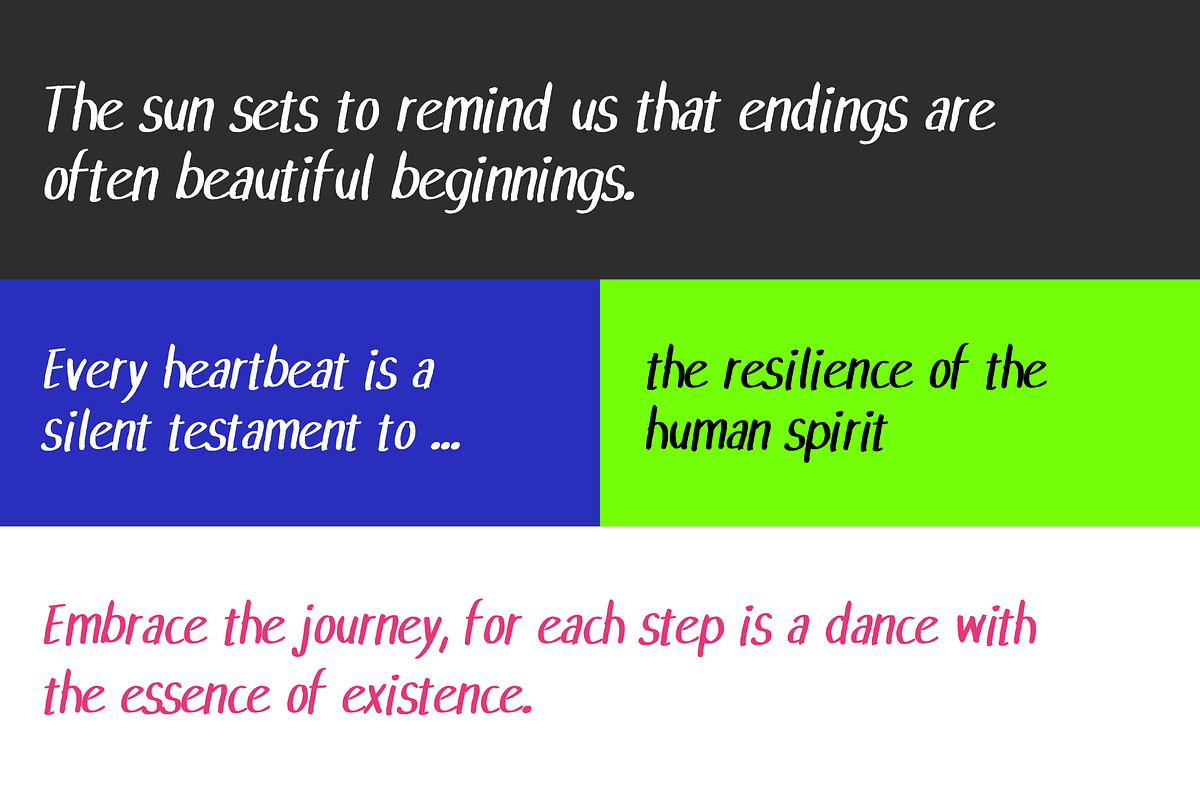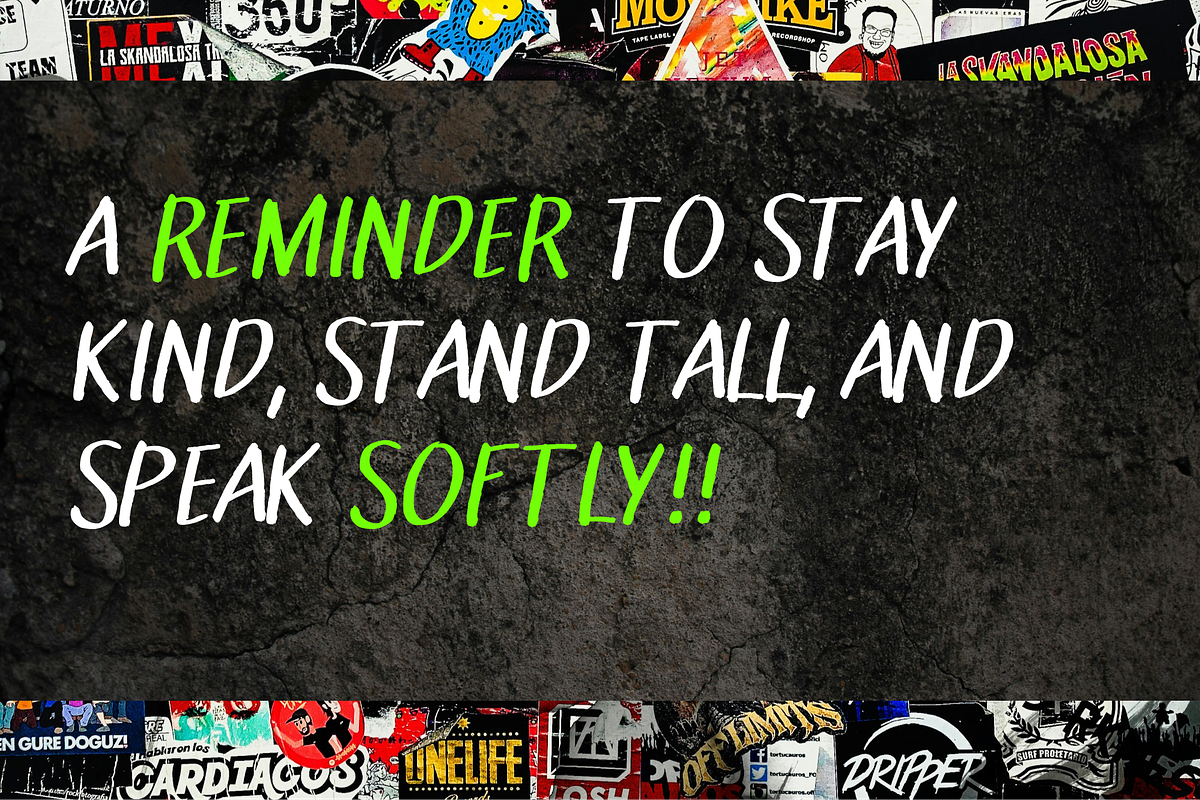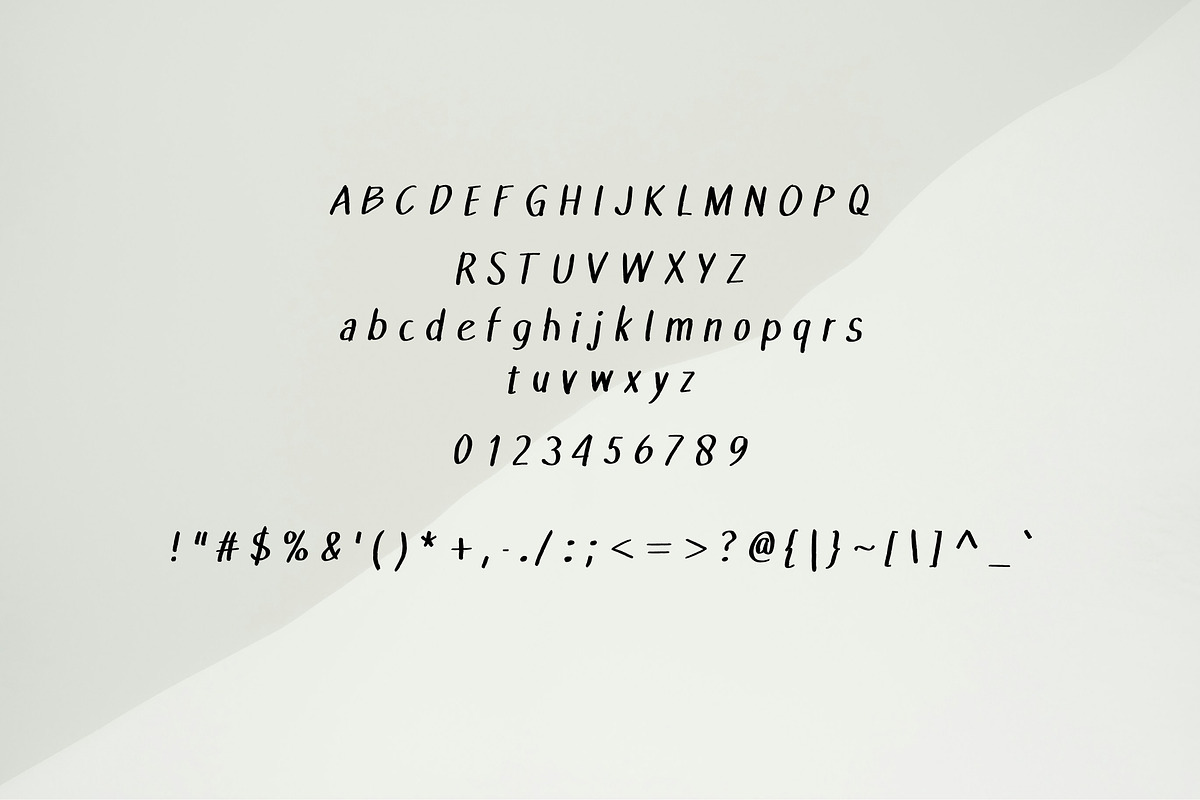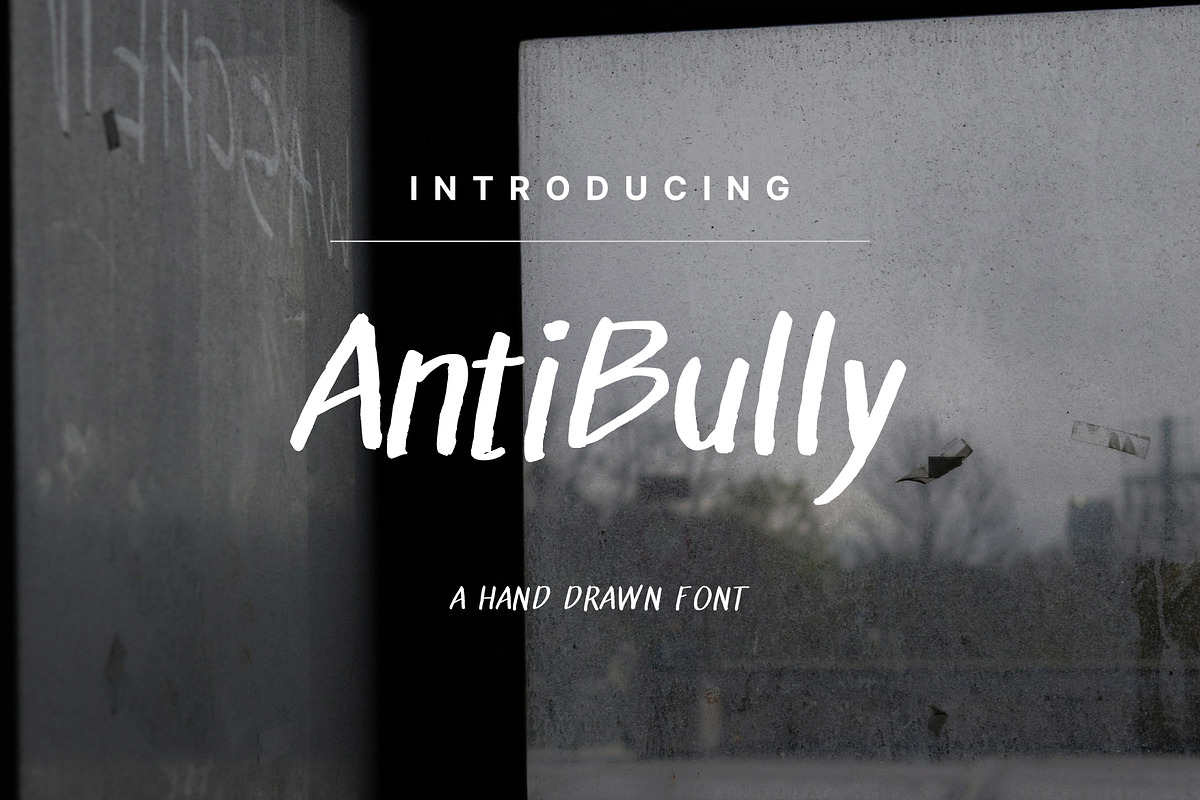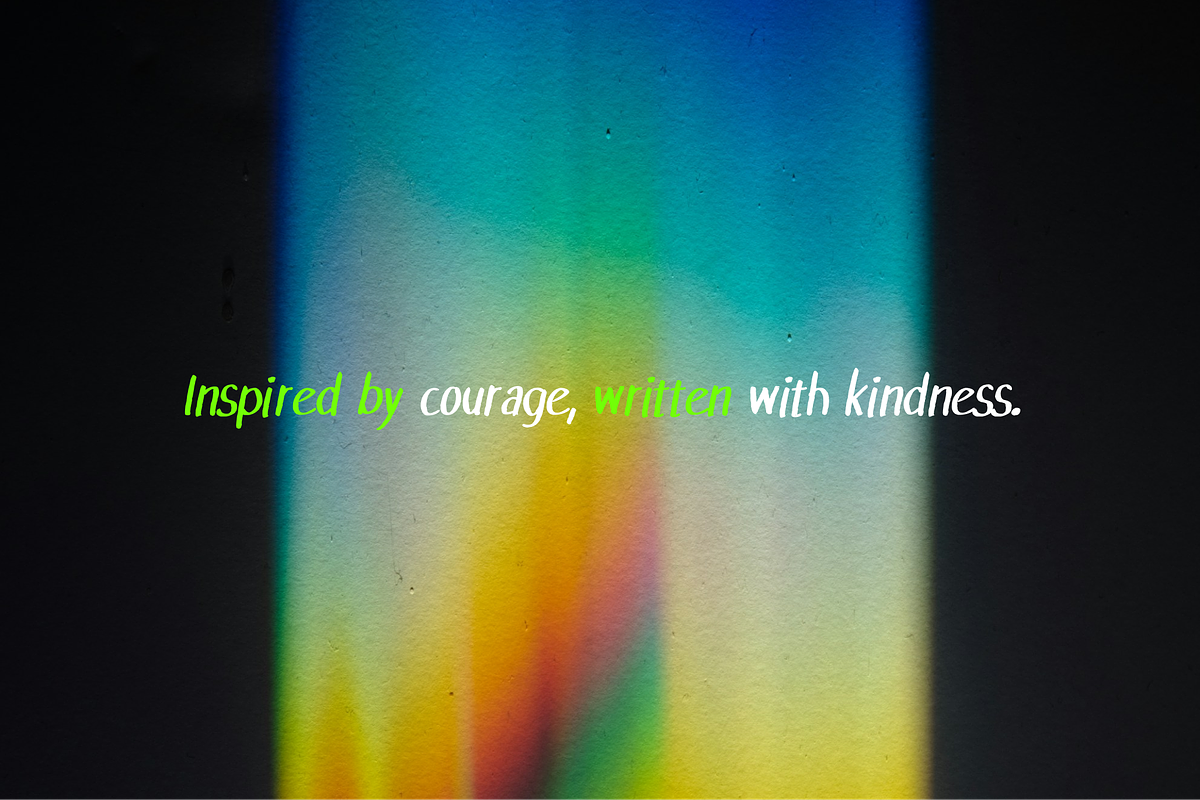
AntiBully Hand-Drawn Brush Font
AntiBully is a bold handwritten brush font that blends grunge energy with elegant expression. Its rough yet graceful strokes carry a sense of raw honesty — imperfect, emotional, and unapologetically human.
Crafted to stand out, AntiBully brings a fearless handwritten vibe while staying beautifully legible. It’s perfect for designs that demand both strength and authenticity — from protest posters and motivational quotes to book covers, branding, and editorial layouts.
AntiBully speaks with courage — a font that dares to be imperfectly beautiful.
Recommended for:
Bold typography posters
Emotional or social awareness campaigns
Artistic branding
Handmade or expressive design projects
Basic Latin A-Z and a-z
Number and Punctuation Symbols